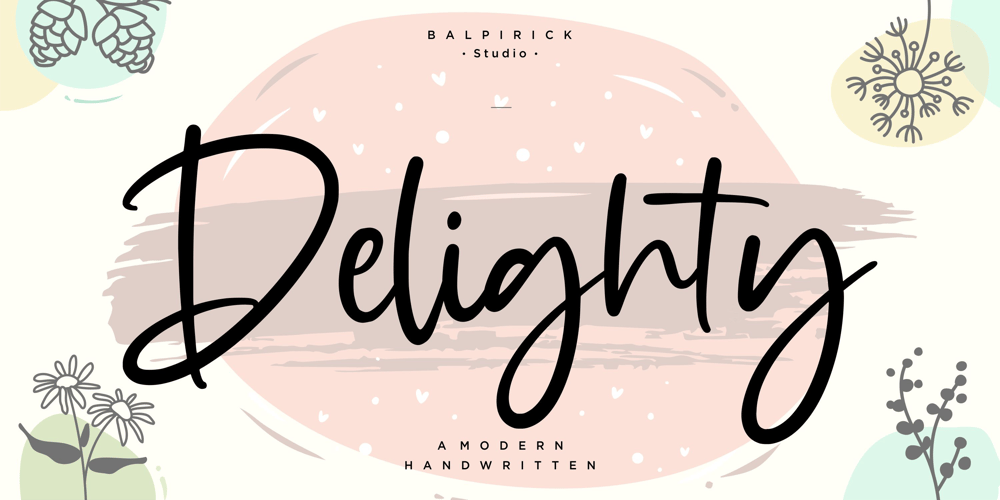
Delighty
Delighty font
Delighty Font Family was designed by Restu Angga and published by Balpirick. Delighty contains 1 styles and family package options. Proudly Present, Delighty Font.Delighty is a Modern Handwritten Font. This sweet font has nice smooth lines.Delighty is perfect for product packaging, branding project, megazine, social media, wedding, or just used to express words above the background.This font includes TTF and OTF, Delighty also multilingual support.Enjoy the font, feel free to comment or feedback, send me PM or email.Thank you!